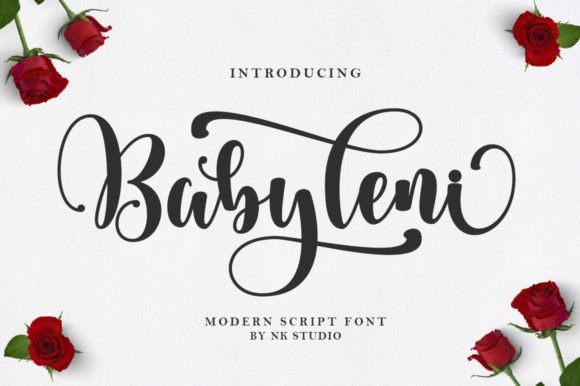
Discover the Timeless Beauty of Baby Leni Font
Do you remember the feeling of excitement and anticipation when creating a new design project? The blank page, the endless possibilities, and the thrill of bringing your vision to life? For designers, this moment is a constant source of inspiration, and the right font can make all the difference.
Enter Baby Leni Font, a stunning script font that’s been a favorite among designers for its versatility and charm. This beautiful font is perfect for a wide range of applications, from elegant invitations and product packaging to creative logos and branding. With its many alternative styles, Baby Leni Font offers endless possibilities for designers to express their creativity and bring their ideas to life.
Baby Leni Font Key Features
- Font Style: Script, Casual, Handwritten
- Unique Characteristics: Whimsical, playful, and elegant, making it perfect for children’s books, greeting cards, and other creative projects.
Baby Leni Font Review
First off, I want to say that Baby Leni Font has a certain charm to it. The script style is ✨ playful and endearing, making it perfect for titles, headings, and any text that needs a touch of whimsy. The font’s rounded edges and gentle curves add a sense of approachability, which is great for designs targeting families or young audiences.
Another thing I like about Baby Leni Font is its ✨ versatility. It works well in both digital and print designs, and its OpenType features allow for some nice customizations. The font also comes in a range of weights, from Light to Bold, giving you plenty of options to suit your design needs.
Limits and Drawbacks
While Baby Leni Font has its strengths, there are a few areas where it falls short:
- ⚠️ Limited language support: Baby Leni Font is primarily designed for Latin-based languages, which may be a problem if you need to use it for languages like Chinese, Japanese, or Korean.
- ⚠️ Not suitable for body text: Due to its script style, Baby Leni Font is best used for titles, headings, and short text passages. Using it for body text can make it difficult to read.
In conclusion, Baby Leni Font is a delightful addition to any designer’s toolkit. While it has some limitations, its charm and versatility make it a great choice for projects that require a touch of playfulness and approachability. Just be mindful of its language support and use it wisely in your designs.
The Baby Leni Font is ideal for:
- Baby shower invitations and decorations
- Children’s book illustrations and text